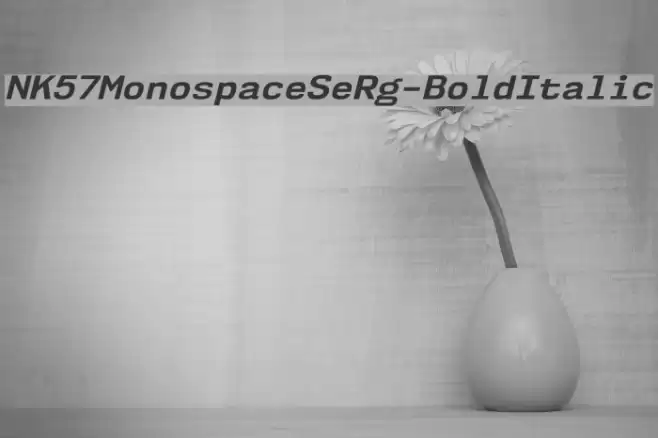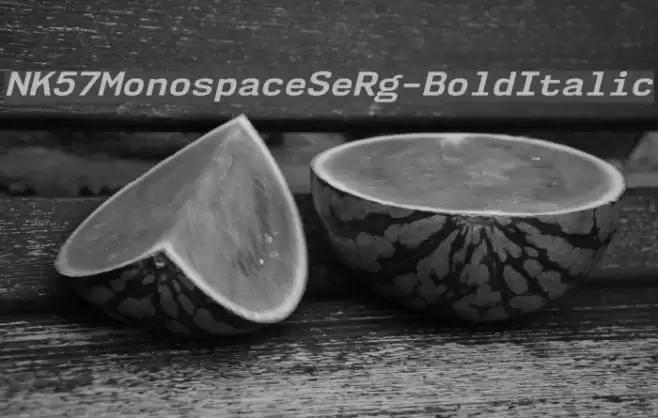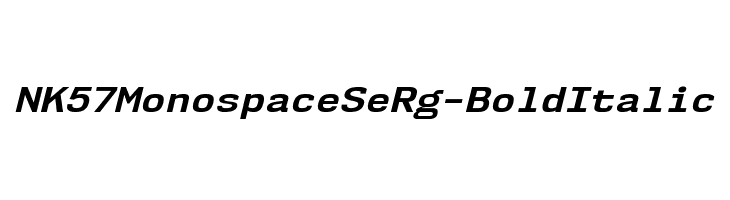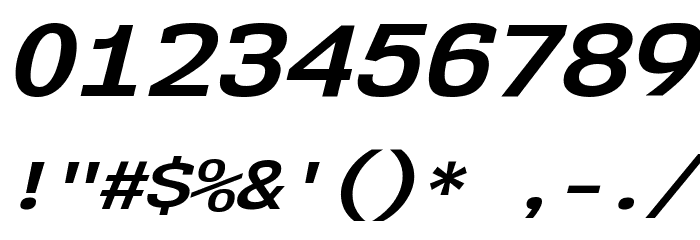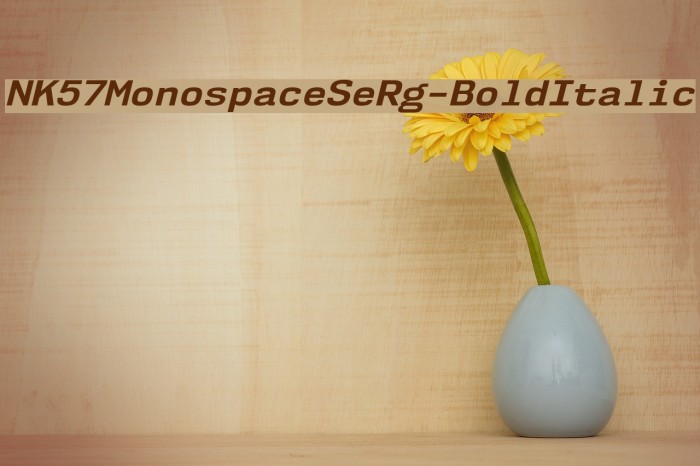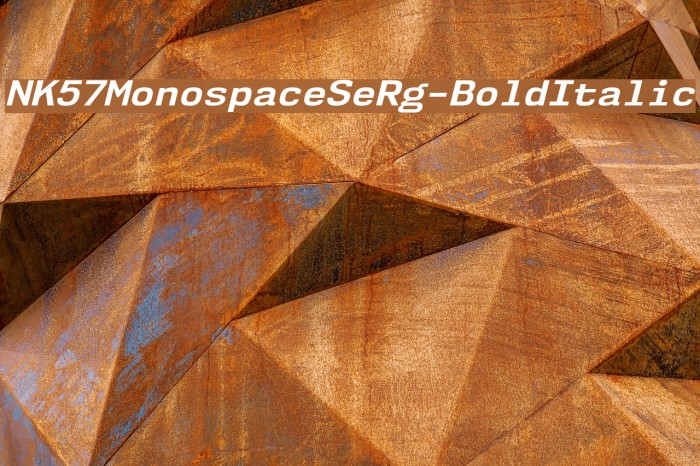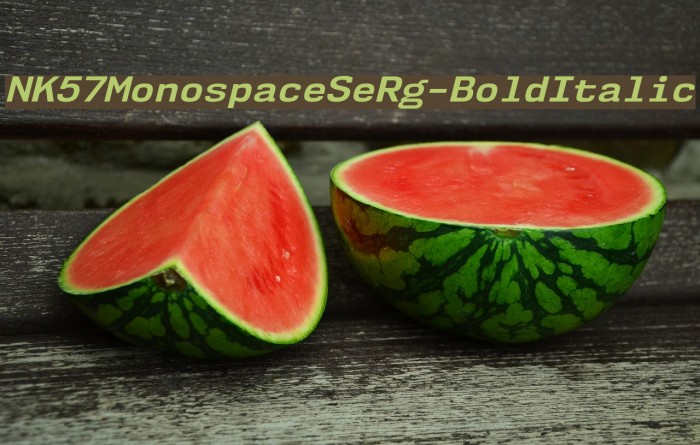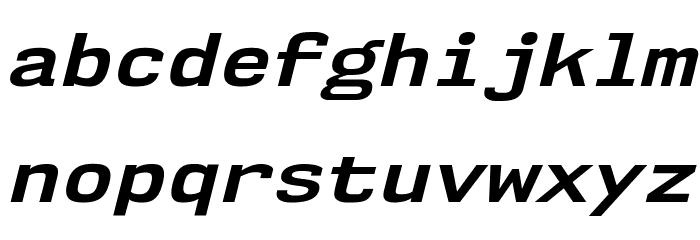
NK57MonospaceSeRg-BoldItalic Font
NK57MonospaceSeRg-BoldItalic Description
This typeface presents a clean and structured appearance with a monospaced design, ensuring each character occupies the same amount of horizontal space. The italic style adds a dynamic and forward-leaning aspect, enhancing readability and providing a modern touch. The bold weight gives it a strong presence, making it suitable for emphasis and clarity. The characters are well-defined with consistent stroke widths, contributing to a uniform and balanced look. The font includes a full set of uppercase and lowercase letters, numerals, and a variety of special characters, making it versatile for different applications. The overall style is contemporary, with a focus on functionality and precision, ideal for coding, technical documents, and any project requiring a clear and organized text presentation.
A bold, italic monospaced typeface with a modern and structured design from Basic fonts.
- Proposed Projects: Ideal for coding environments, technical documentation, and any project requiring precise alignment and readability.
- Use Case: Coding, Technical documents, Emphasis in text